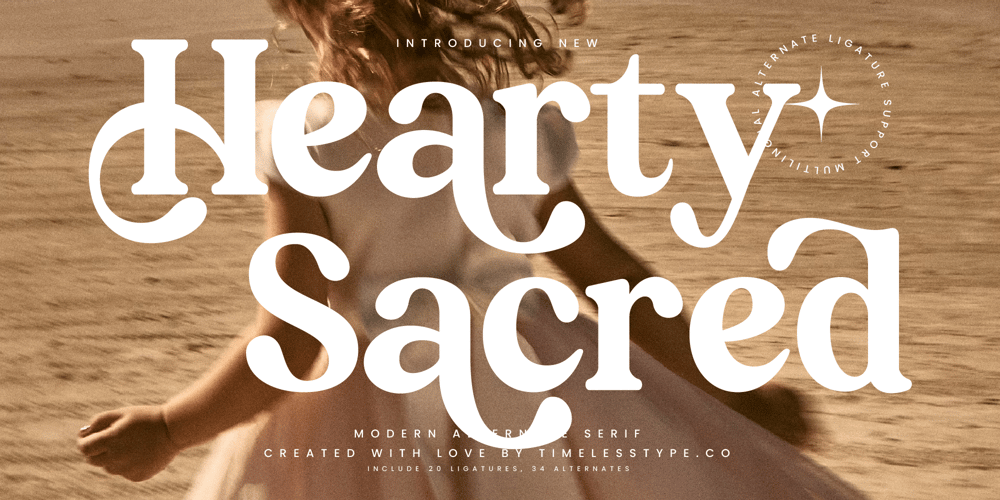
Hearty Sacred
Hearty Sacred font
Hearty Sacred Font Family was designed by Heru Utama Putra and published by Timelesstype Studio. Hearty Sacred contains 1 styles and family package options. Hearty Sacred – Modern Alternate Serif , from Timelesstype.Co , Suitable for any projects such as: logos, branding projects, homeware designs, product packaging, mugs, quotes, posters, shopping bags, t-shirts, book covers, name card, invitation cards, greeting cards, label, photography, watermark, special events, and all your other luxury and beautiful projects that need a Luxury Serif taste.